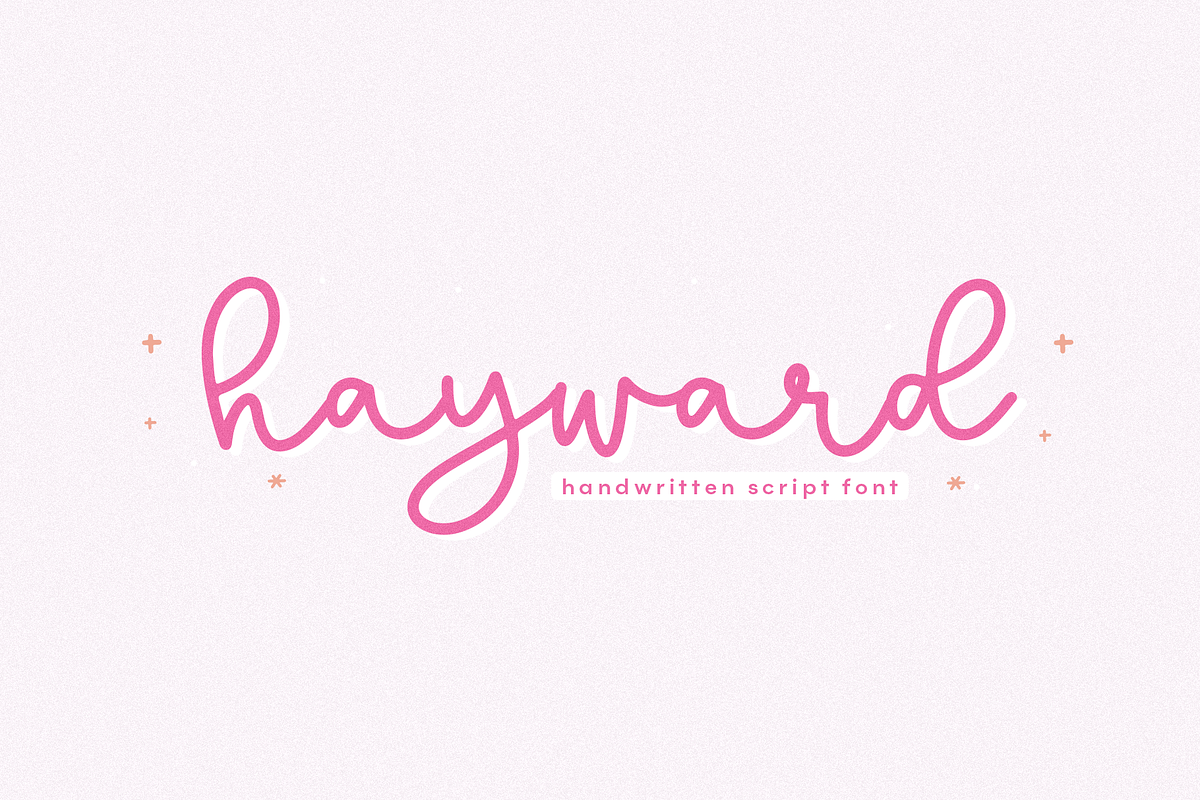
Hayward | Handwritten Script Font Free Download
Hayward | Handwritten Script Font Free Download is a charming and elegant handwritten script font designed with smooth, flowing strokes and subtle curves. It brings a personal, authentic touch to your designs, making it ideal for branding, wedding invitations, greeting cards, social media graphics, and any creative project that requires a beautiful, handwritten style.
Using the Hayward | Handwritten Script Font Free Download adds warmth and personality to your typography. Whether you're creating a custom logo, crafting a heartfelt invitation, or designing engaging content for your brand, this font offers a delicate and artistic flair to your work.